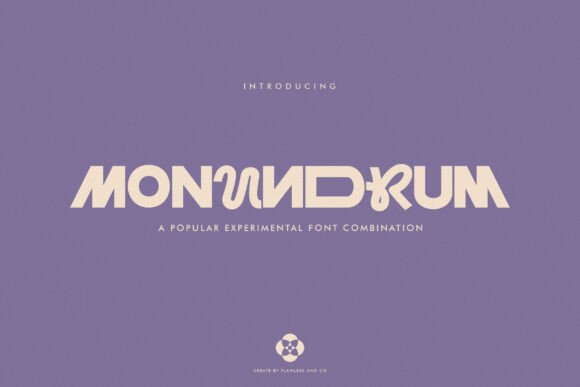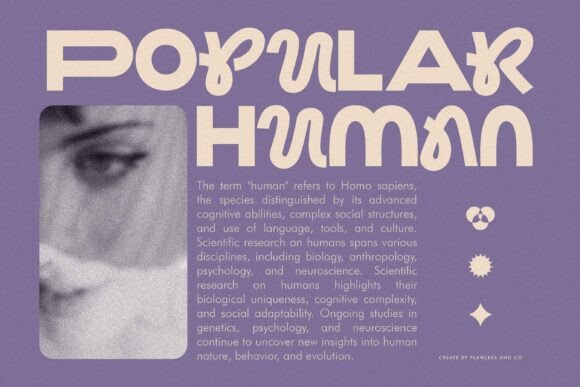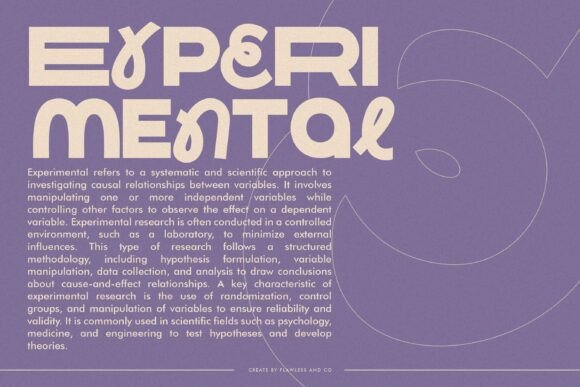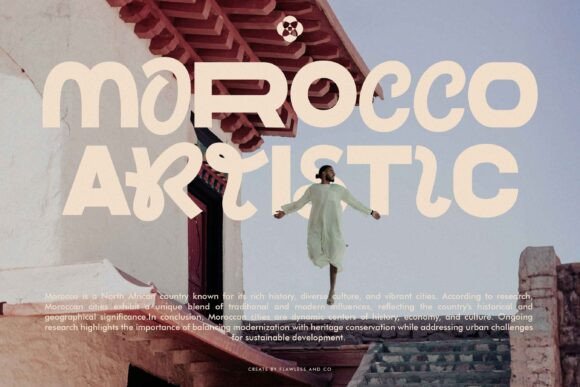
Monundrum Font: Unique Display Typography for Bold Social Media Designs
About the Monundrum Font
Meet Monundrum Font, a stunning font that brings a touch of elegance and professionalism to any design. Monundrum is a bold sans serif font with a striking display combination, designed to make a powerful statement. Its strong letterforms and modern aesthetic make it suitable for headlines, posters, branding, advertising, sports designs, and eye-catching social media graphics. Perfect for projects that demand boldness and impact.
Monundrum’s bold structure excels in large-scale applications; it commands attention in headlines, posters, and branding materials for impactful, modern projects. However, its weight and strong forms are less suited for body text or UI elements where readability over long stretches is crucial. Avoid using it for lengthy paragraphs or small sizes.
This font’s core personality is assertive and contemporary. Brands prioritizing boldness and a strong visual presence will find it ideal – think sportswear, tech startups, or edgy fashion.
Pairing Monundrum effectively requires considering its weight. A light, elegant serif like Lora or a neutral sans-serif like Open Sans provides a pleasing contrast, creating visual balance and hierarchy. For a more playful effect, a rounded sans-serif such as Poppins could also work well.
Monundrum Font Usage Examples
Monundrum Font Example